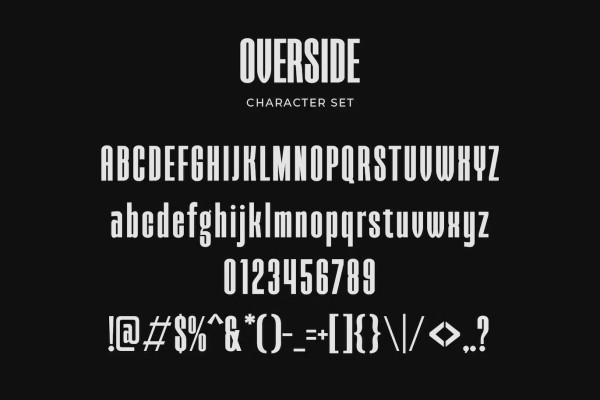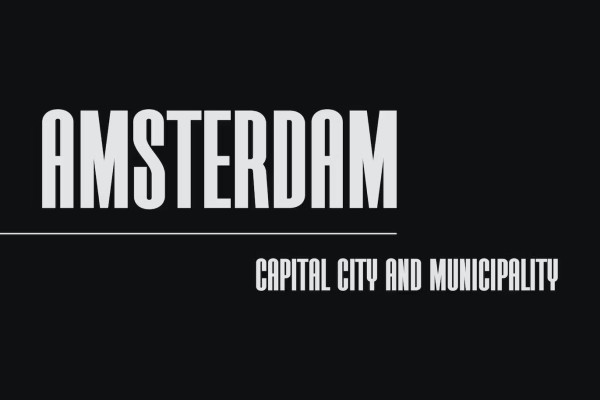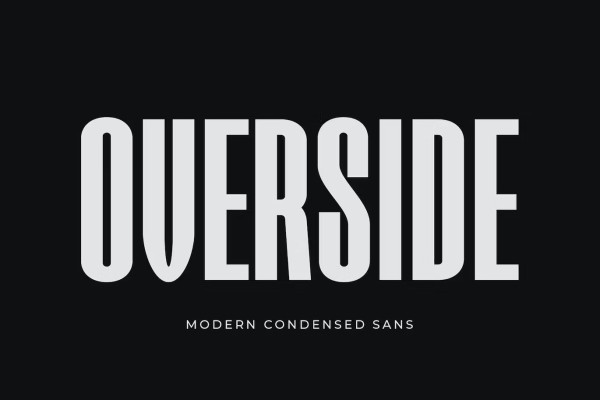
Overside Font
Overside Font, a modern sans serif font with an elegant style, perfect for branding, logos, invitations, magazines, product packaging and more. Please download and enjoy, thank you, and don’t forget to check out our other products.